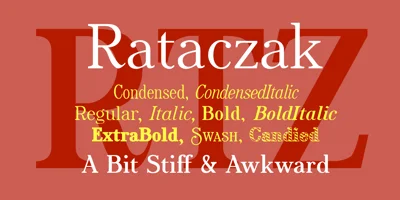
Rataczak Font
Rataczak Font is excellent for distinctive design applications including contemporary branding, experimental typography projects, artistic publications, avant-garde marketing campaigns, creative studio logos, modern exhibition graphics, innovative web design, and cutting-edge editorial layouts. This unique typeface brings bold individuality and artistic expression to projects that demand memorable visual identity and unconventional design approaches.
What makes Rataczak Font exciting is its distinctive character that combines structured design principles with expressive artistic elements to create a truly memorable typographic voice. The font features unconventional letterforms with unique proportions and creative details that challenge traditional typography while maintaining functional readability. Its artistic character appeals to audiences who appreciate design innovation, creative risk-taking, and memorable brand differentiation.
The Rataczak Font family includes various artistic styles such as Regular, Bold, Light, and experimental alternates with creative character variations that enhance the distinctive aesthetic. These innovative options provide comprehensive design solutions for projects that require unique typographic expression and artistic authenticity in competitive creative markets.
This specialized artistic typeface brings genuine creative authenticity to contemporary design projects. Design agencies and innovative brands choose Rataczak Font for its exceptional ability to communicate artistic sophistication and creative distinction. The font's experimental nature makes it perfect for creative studios, contemporary art galleries, and forward-thinking brands that want to project artistic leadership and unconventional thinking. Its distinctive character ensures memorable visual impact while maintaining the authentic aesthetic that defines exceptional contemporary creative design work.